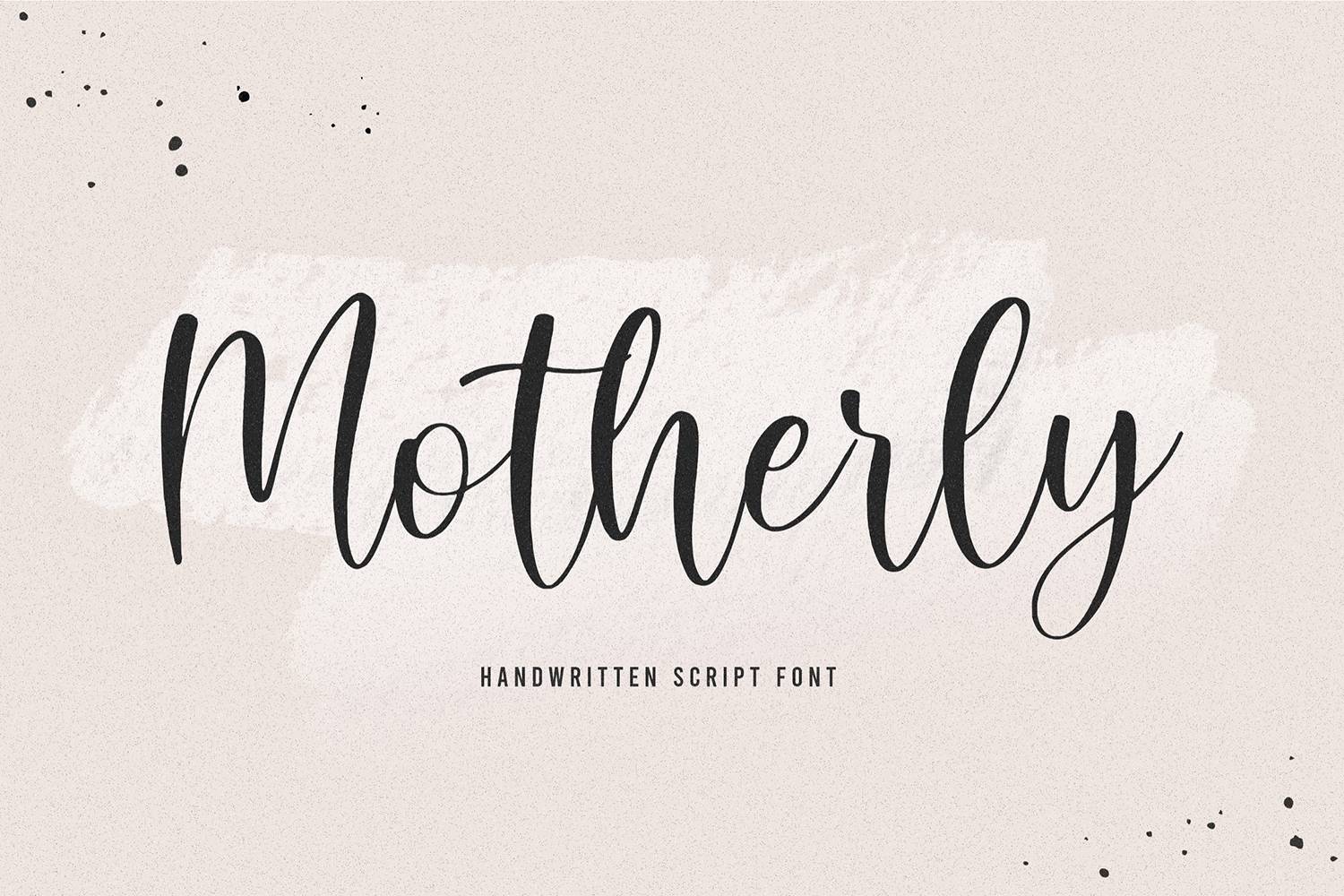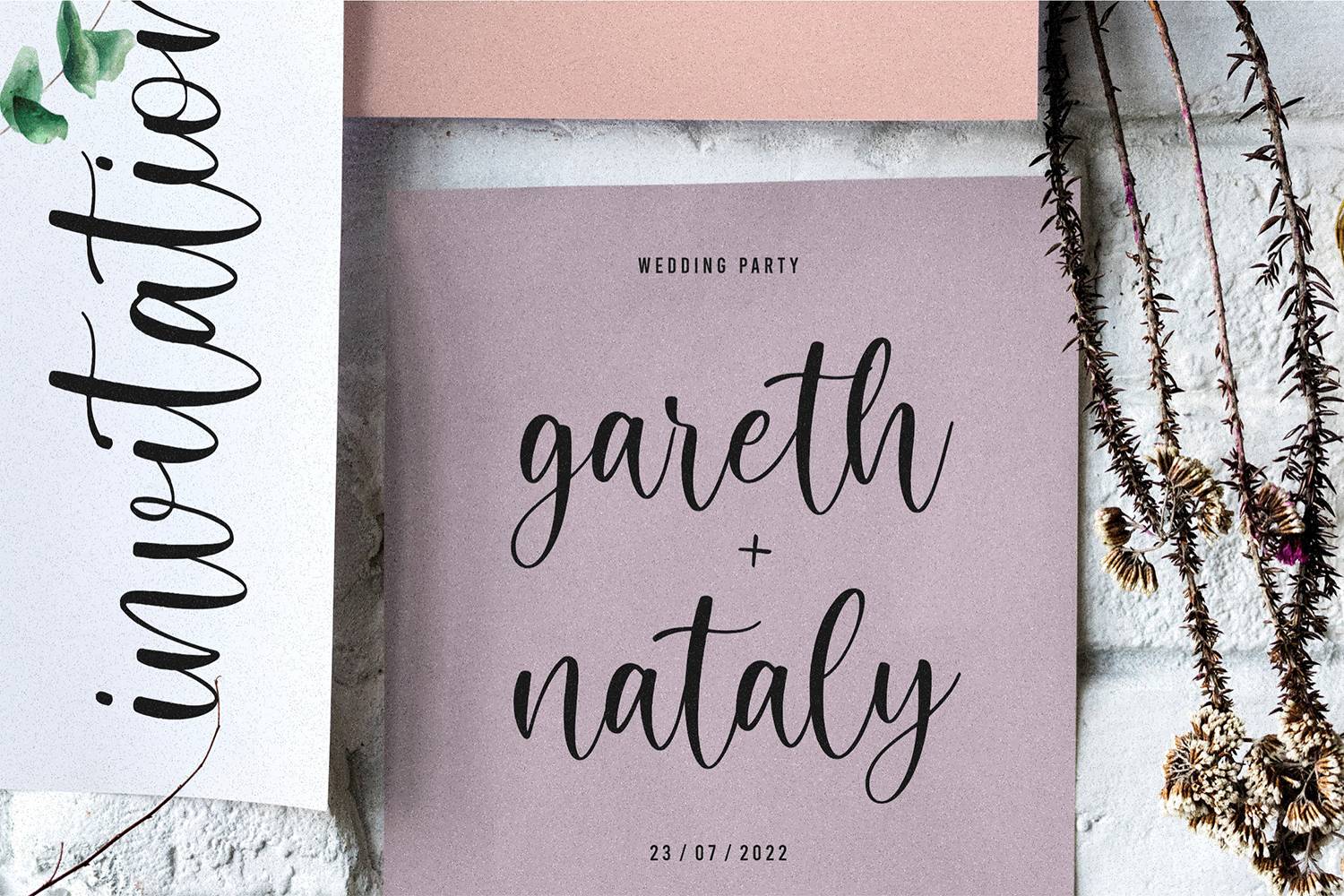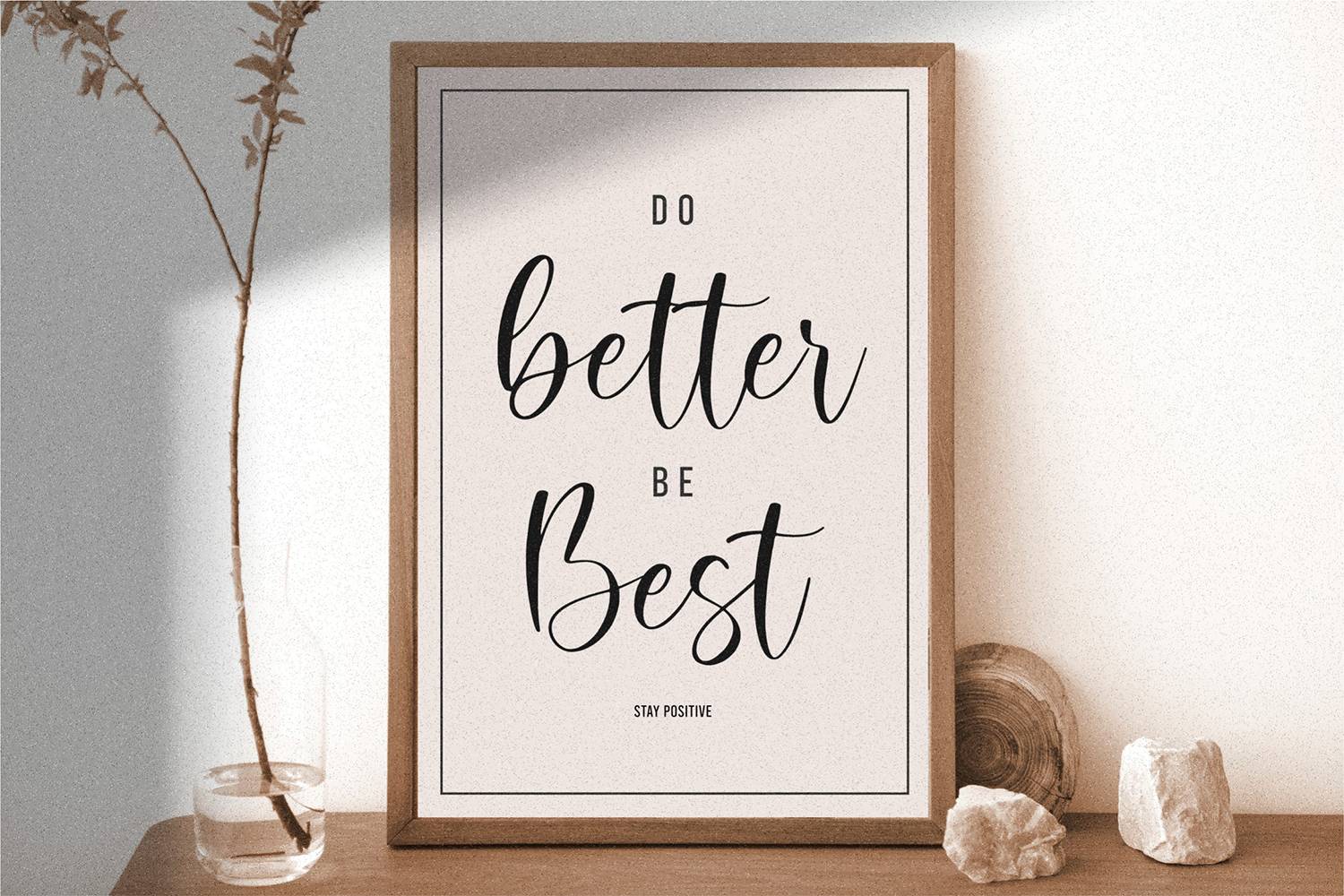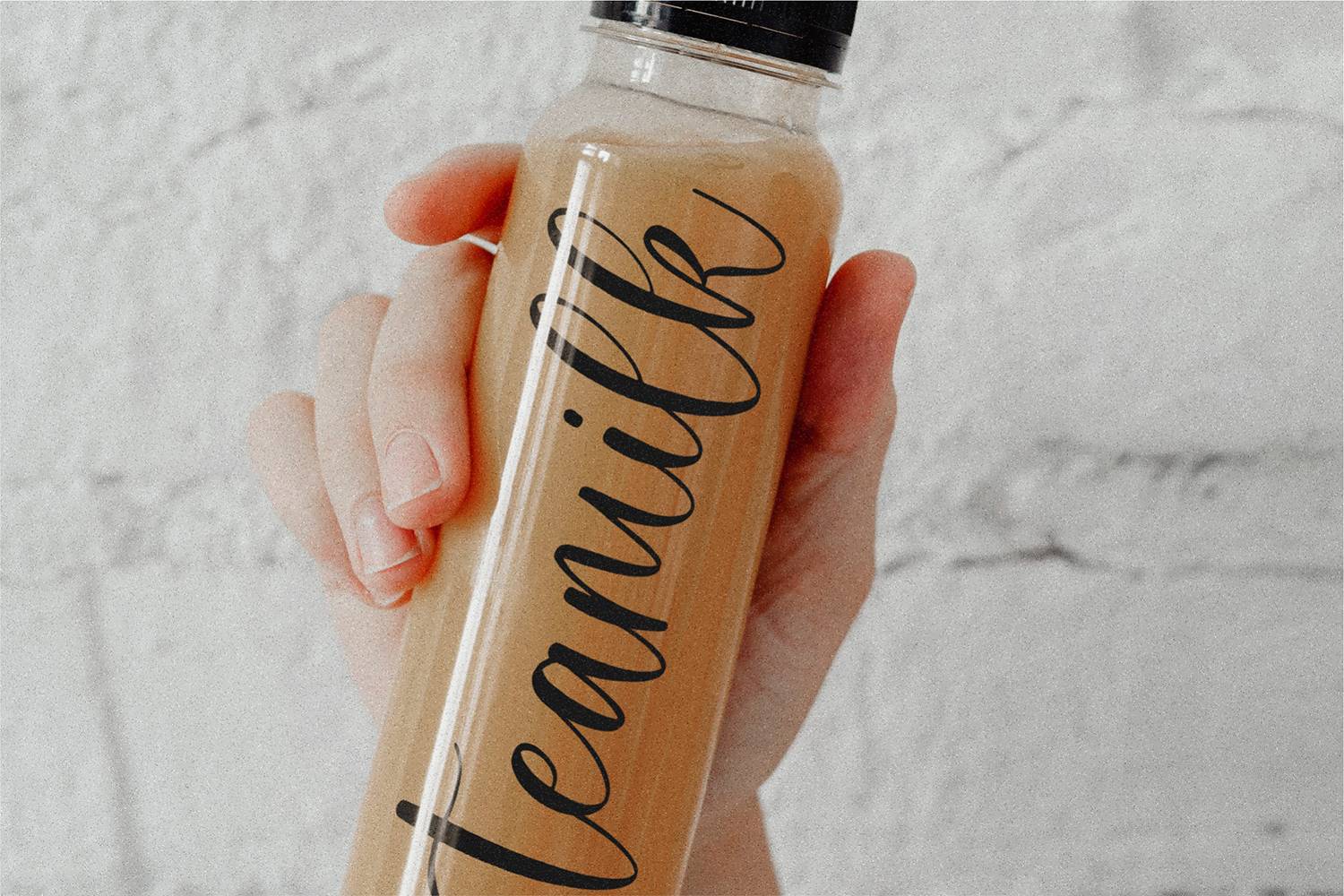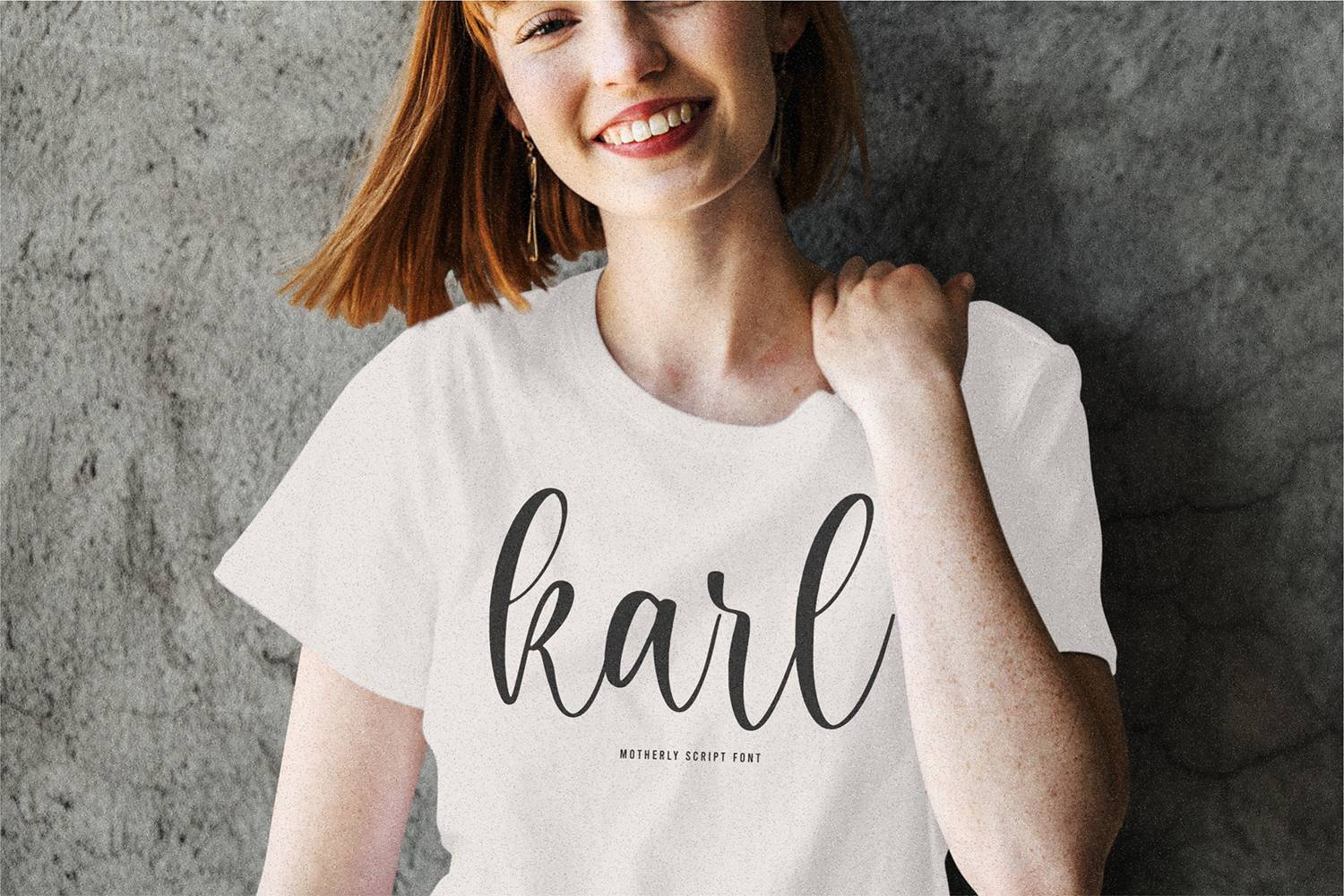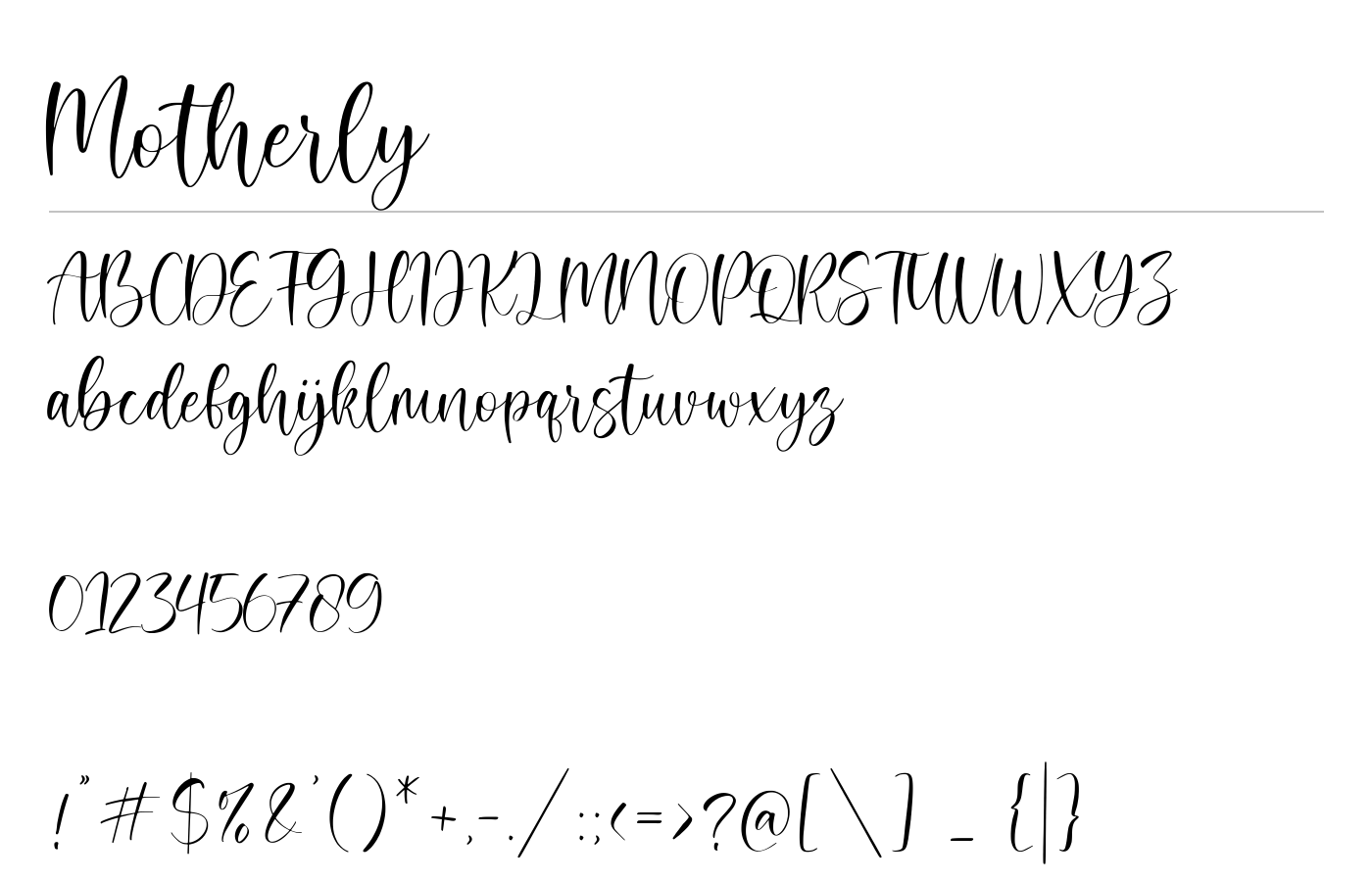
Motherly is an elegant, handwritten script font with a light weight and fluid, flowing strokes that convey warmth and charm. Its tall x-height and delicate curves make it perfect for adding a personal, artistic touch to branding, invitations, and feminine design projects. This font shines in logos, headlines, and packaging where a graceful, approachable style is desired.
Motherly Font
About Motherly Font